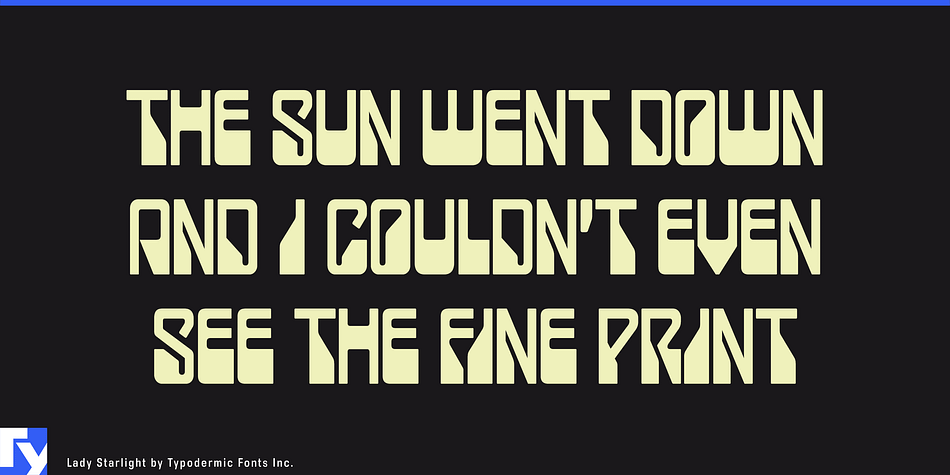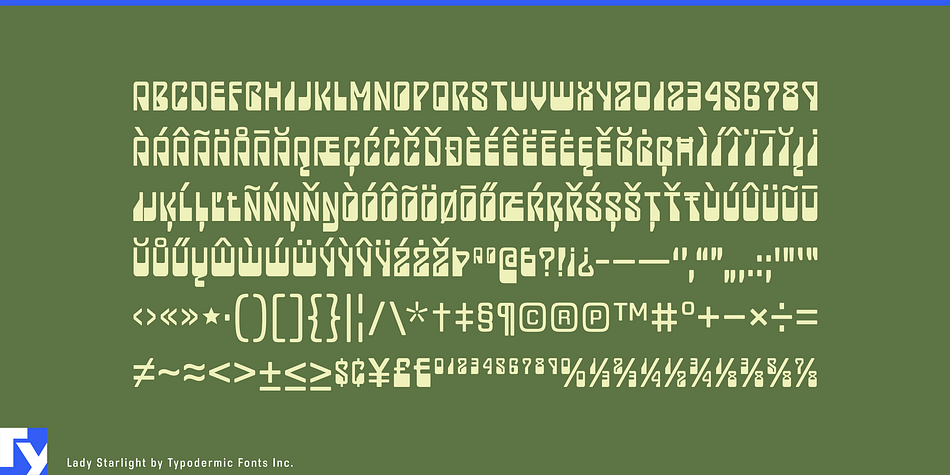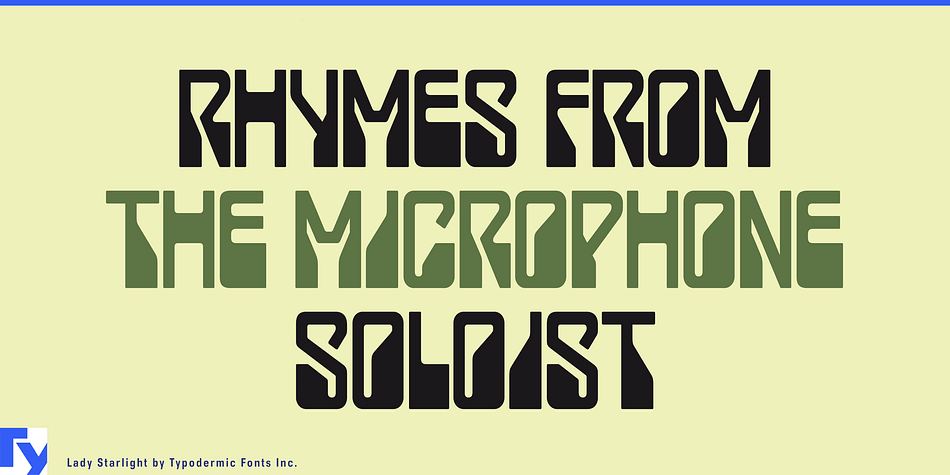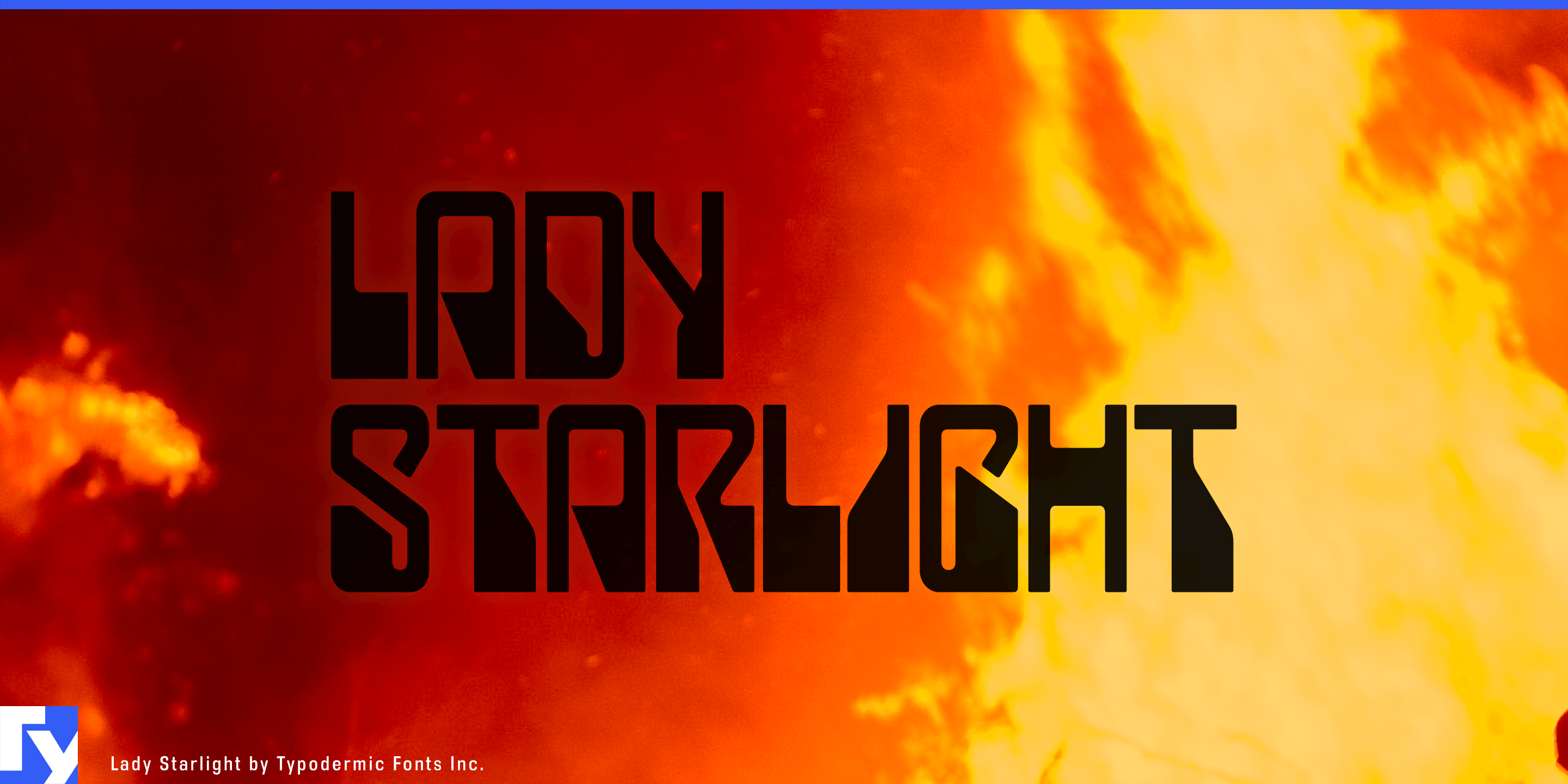
Lady Starlight is a display sans font published by Typodermic Fonts Inc.
Lady Starlight is a 1970’s retro font inspired by the font used for the poster for the original Rollerball movie and the Scorpions band logo.